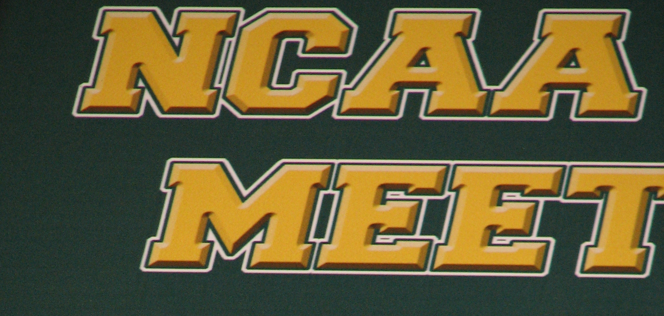
The design is of some championship years and players. It has, what we think is the, Collegiate Font. But for some reason it looks like it was Text Effect, that was maybe done in Corel Draw or something.
Anyway, we can't figure out how they might have done it. We both think that it wasn't and Embossed font because, the shadows and highlights on the edges, would have been flattened [not sure if thats how to describe it].
Is there a Text Effects program that could do this, or a plug-in that would do the same sort of effect?
Here is a closeup of what i am talking about:
Heres the image:
That was my original thought at our meeting. I would of tired it out in PS but the computer i was working on today doesn't have a PS installed, so i ended up trying it out with the 3D Effect in Illustrator CS.
It seemed to work out close enough, i just need to find the same font, with out the outlines, and spend more time playing with it.